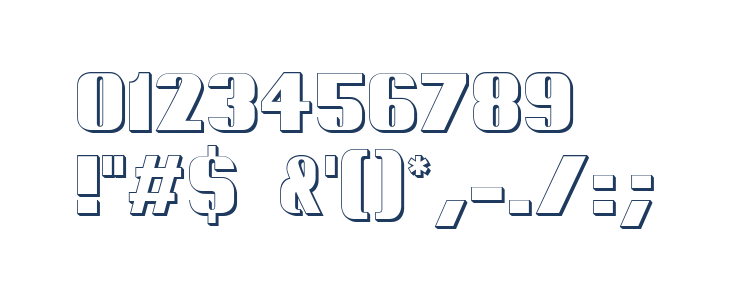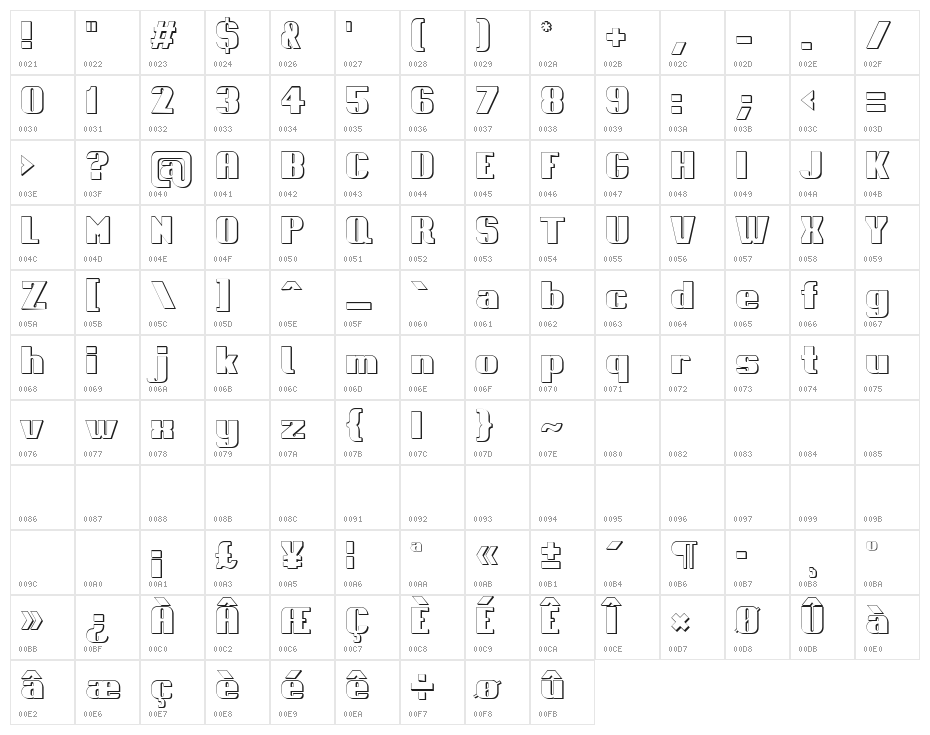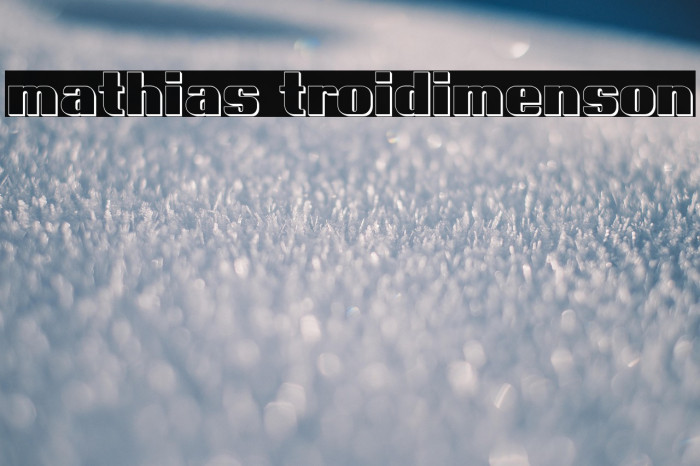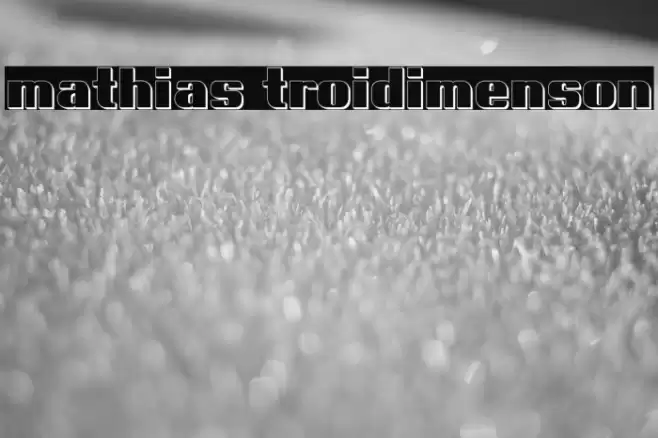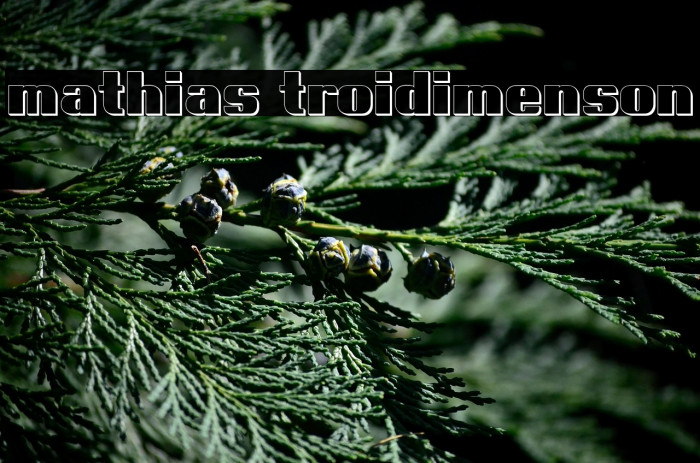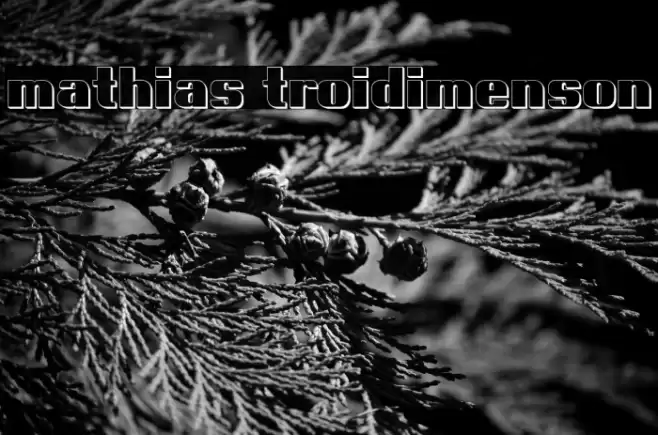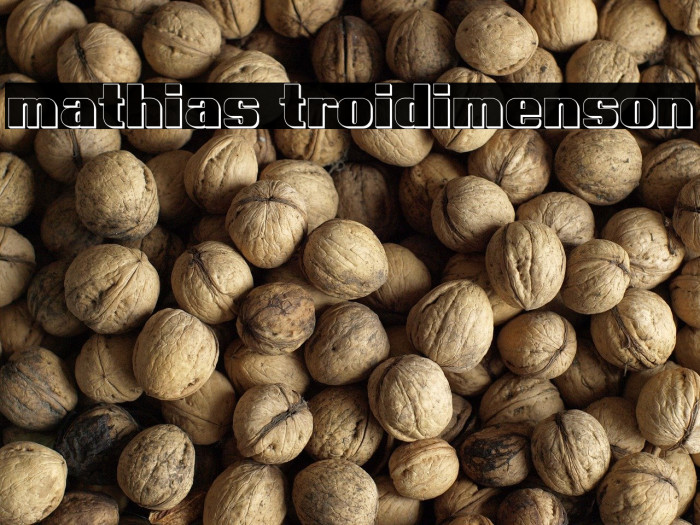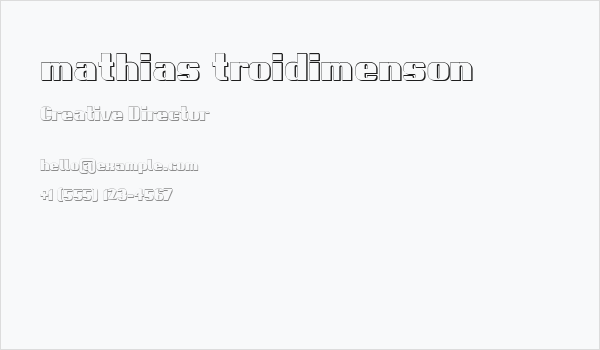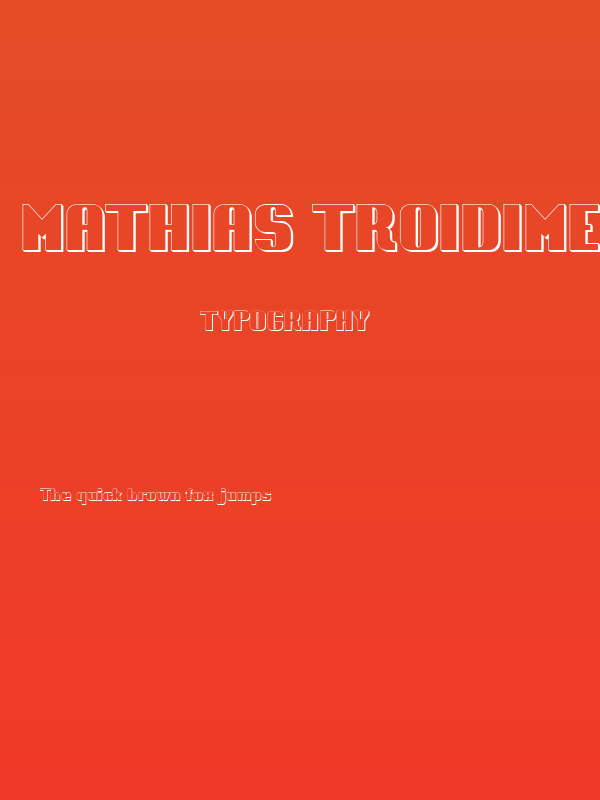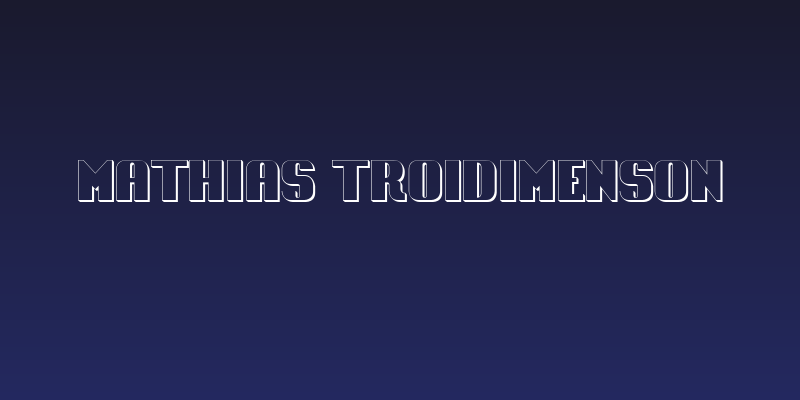
mathias troidimenson Font
mathias troidimenson Description
This font features a bold, three-dimensional style with a strong, impactful presence. The characters are outlined with a shadow effect, giving them a distinct, layered appearance. The uppercase and lowercase letters maintain a consistent width, contributing to a uniform look. The numerals and special characters are designed to match the boldness of the alphabet, ensuring a cohesive visual style throughout. The font's geometric shapes and clean lines make it suitable for modern design projects, where a striking and memorable typeface is desired.
| Proposed Projects | Ideal for posters, headlines, branding, and any project requiring a bold statement. |